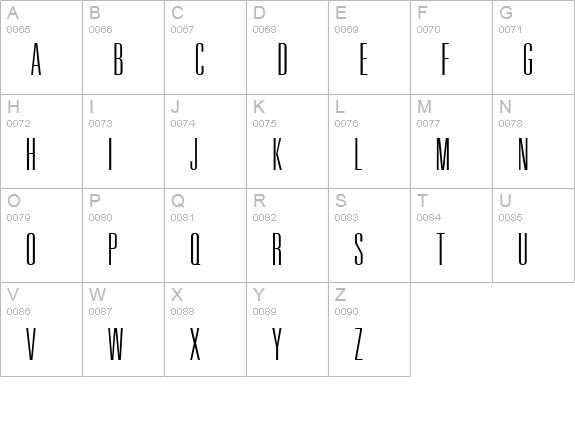
Uniform Regular Font Details
Uniform Regular is the standard, neutral variant in the Uniform typeface family \xE2\x80\x94 well suited to general body text, paragraphs, and standard typographic work.
Uniform Regular is a sleek and modern font that exudes a sense of professionalism and elegance. Its clean lines and balanced proportions make it a versatile choice for a wide range of design projects. Whether you are creating a logo, designing a website, or crafting a brochure, Uniform Regular will add a touch of sophistication to your work. This font features a uniform stroke width throughout, giving it a consistent and cohesive appearance. The well-defined letterforms ensure excellent legibility, making it suitable for both print and digital applications. Each character has been meticulously crafted to achieve a harmonious balance between simplicity and refinement. With its timeless aesthetic, Uniform Regular is perfect for conveying a sense of reliability and trustworthiness. It is well-suited for corporate branding, as it can effectively communicate a company's values and professionalism. Furthermore, its versatility allows it to seamlessly blend into various design styles, from minimalistic to bold and expressive. What makes Uniform Regular even more appealing is that it is available for free download at FontsMarket.com. This means that you can easily access and use this font without any cost. Whether you are a professional designer or a hobbyist, having access to high-quality fonts like Uniform Regular can significantly enhance your creative projects. So why wait? Visit FontsMarket.com now and discover the beauty and versatility of Uniform Regular font.